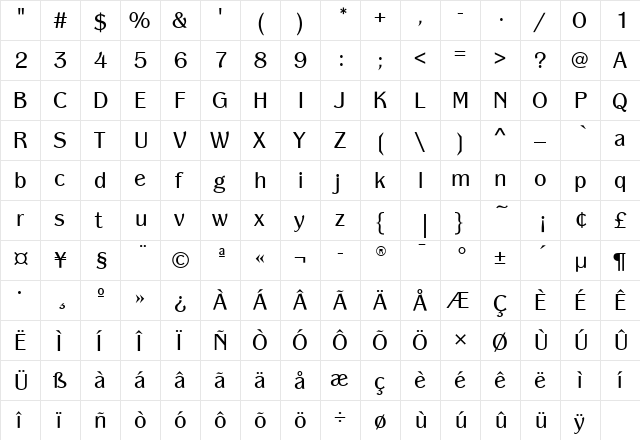
PanacheITC Book
Design Context for PanacheITC Typeface
PanacheITC is a composed and adaptable typeface that performs quietly and consistently across a wide range of design contexts.